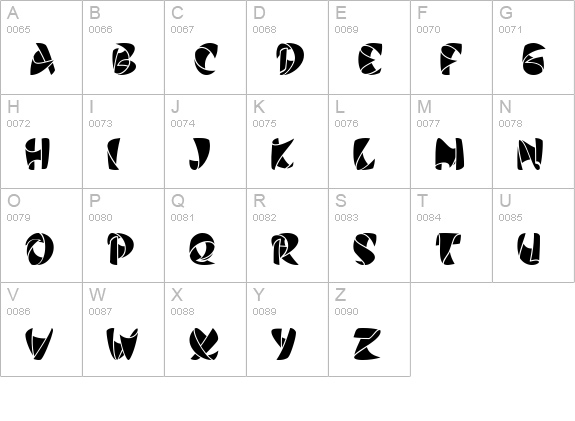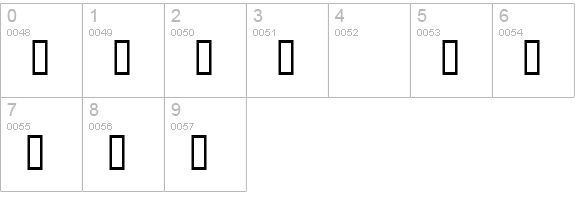
Stiletto Black is a maximum-weight, dramatic variant in the Stiletto typeface family \xE2\x80\x94 well suited to maximum-impact headlines, posters, and packaging.
Introducing Stiletto Black, a bold and stylish font that exudes confidence and sophistication. With its sharp edges and sleek lines, this typeface adds a touch of elegance to any design project. Designed for those who dare to make a statement, Stiletto Black commands attention and demands to be noticed. Its striking presence on the page leaves a lasting impression, making it perfect for headlines, branding, logos, and more. But what makes Stiletto Black even more enticing is that it is available for free! That's right, you can download this exceptional font without spending a dime. Simply head over to FontsMarket.com and unleash the power of Stiletto Black in your creative endeavors. Whether you're a professional designer or a hobbyist, Stiletto Black offers endless possibilities. Its versatility allows it to be used in various contexts, from fashion magazines to luxury brands, from event invitations to high-end signage. With clean and precise letterforms, Stiletto Black ensures legibility without sacrificing its distinct personality. It effortlessly combines modernity with a touch of timeless class, making it a timeless choice for any design project. So why wait? Embrace the boldness of Stiletto Black and let your creativity shine. Download this stunning font for free at FontsMarket.com and take your designs to new heights.